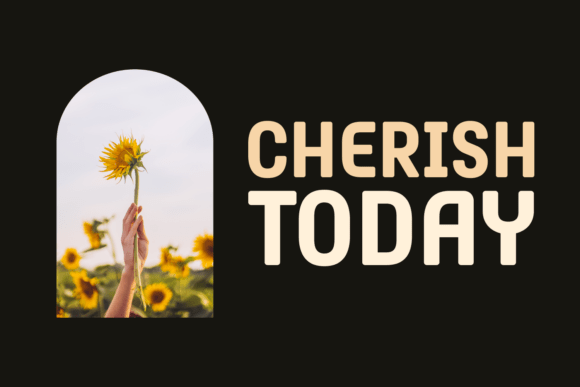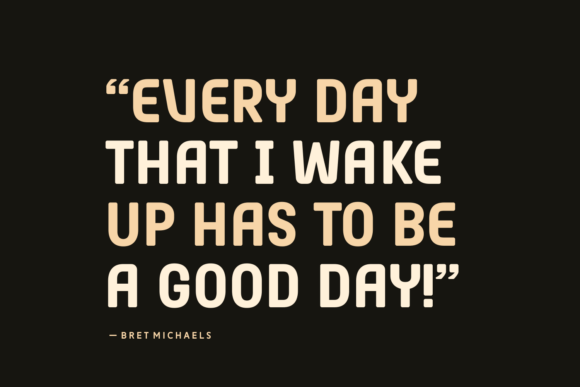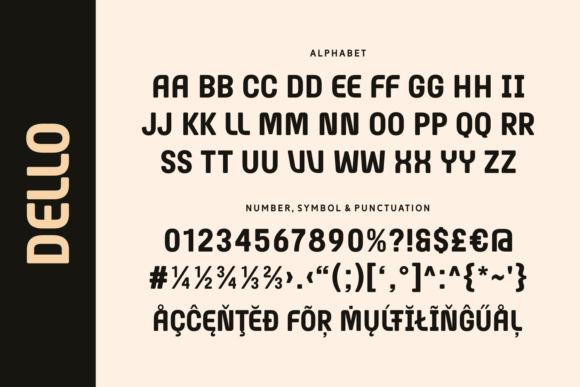
Introduction to Dello Font
As a designer, there’s nothing quite like the thrill of bringing a creative project to life. You’ve spent hours pouring over design concepts, tweaking colors, and agonizing over typography – and then, it clicks. The perfect font appears, and your entire vision shifts into focus. That’s what happened when I stumbled upon the Dello Font, a stunning sans serif font from Creative Fabrica Fonts.
With its heavy, rounded letterforms, Dello Font exudes a friendly, soft, yet impactful character that’s perfect for modern branding, headlines, and logos. Whether you’re working on a high-quality design project or simply need a reliable design resource, Dello Font is sure to deliver. And the best part? It’s available for a free download, making it a transparent and accessible addition to your creative toolkit.
So, what makes Dello Font so valuable for designers? For starters, its versatility and high-quality design make it an ideal choice for a wide range of creative projects, from logos to packaging to editorial design. With Dello Font, you can trust that your design will shine with clarity and impact, thanks to its clean lines and sophisticated aesthetic.
- High-quality design resource with a unique, creative style suitable for various projects
- Comes in a single font file with multiple styles and weights, including bold and italic variations
- Perfect for creative projects, including graphic design, digital art, and publishing
Honest Review: Dello Font
As a designer, I’m always on the lookout for high-quality design resources that can help elevate my creative projects. Recently, I stumbled upon Dello Font, and I’m excited to share my honest review with you.
- ✨ The font’s design is modern and sleek, making it perfect for a wide range of creative projects.
- ⚠️ The font’s character set is limited, making it less suitable for projects that require a wide range of characters.
Overall, I’m impressed with Dello Font’s high quality and versatility. While it may have a few limitations, it’s still a valuable addition to any designer’s toolkit. If you’re looking for a modern, free font for your next creative project, Dello Font is definitely worth checking out.
Common Use Cases for Dello Font
Dello Font is suitable for various design projects, including logo design, typography-based art, and creative marketing materials.